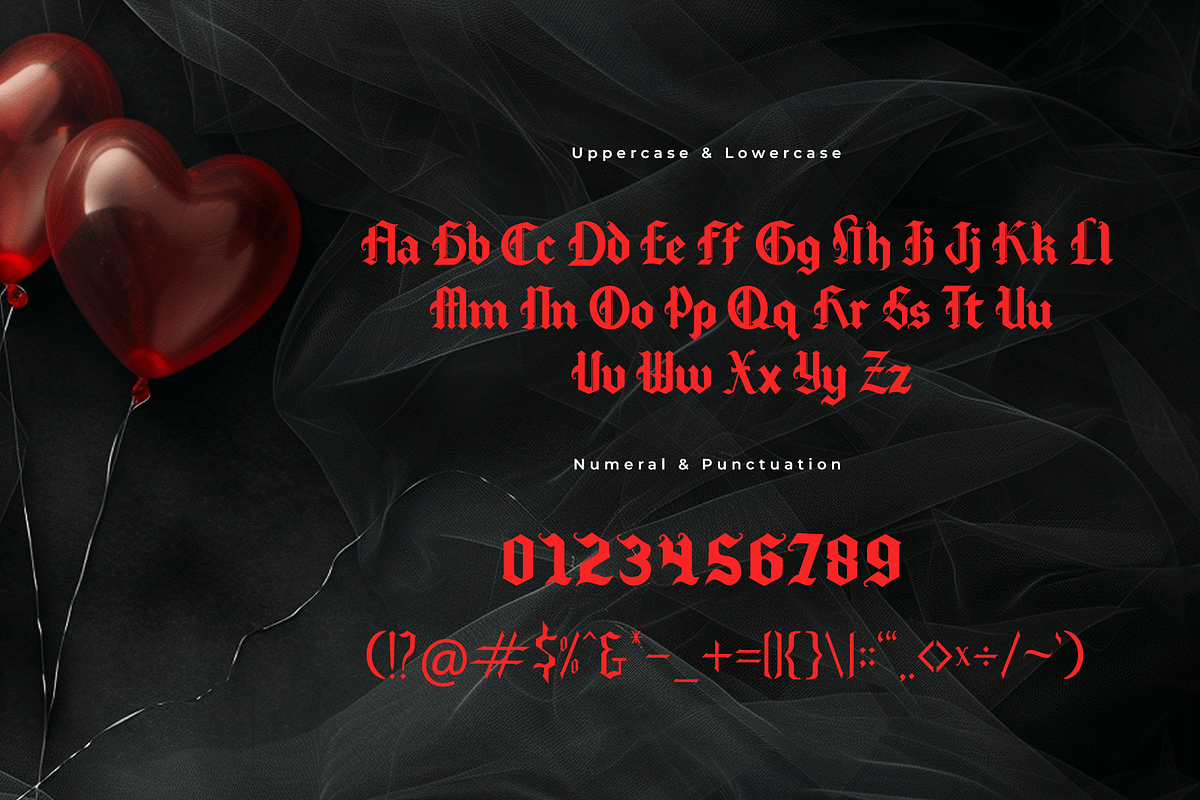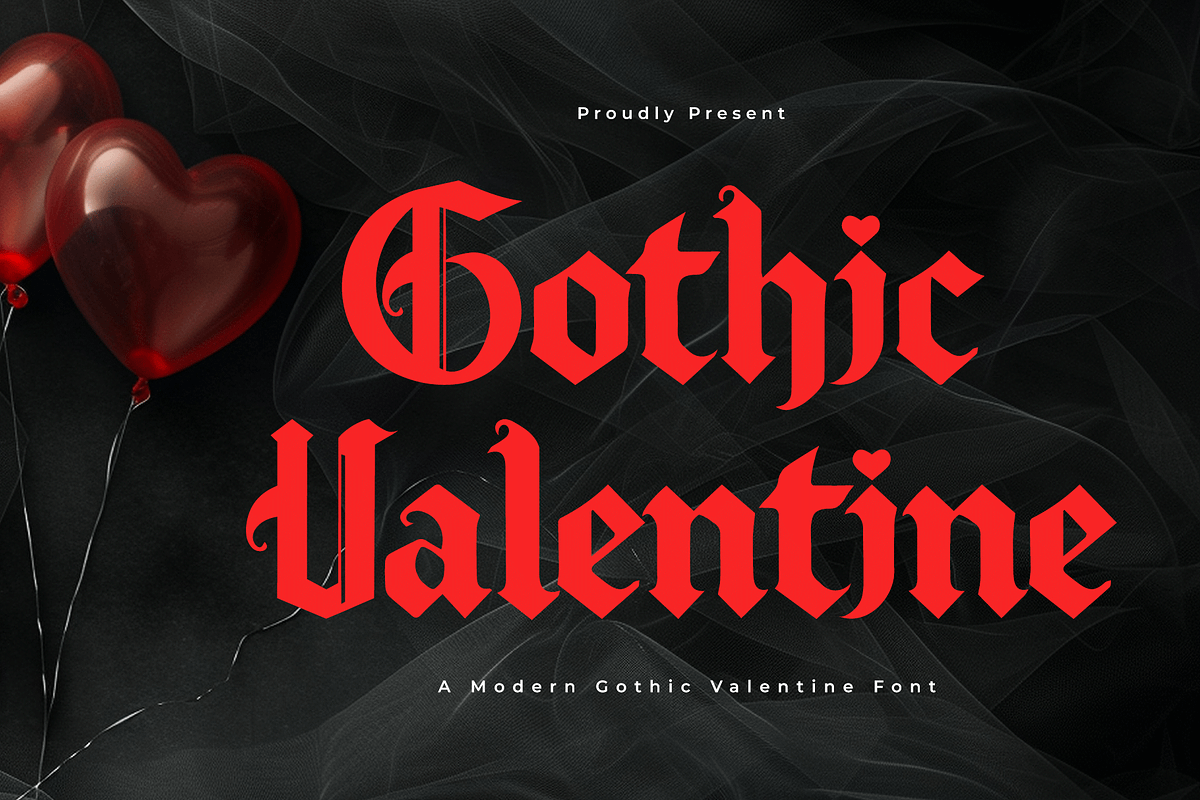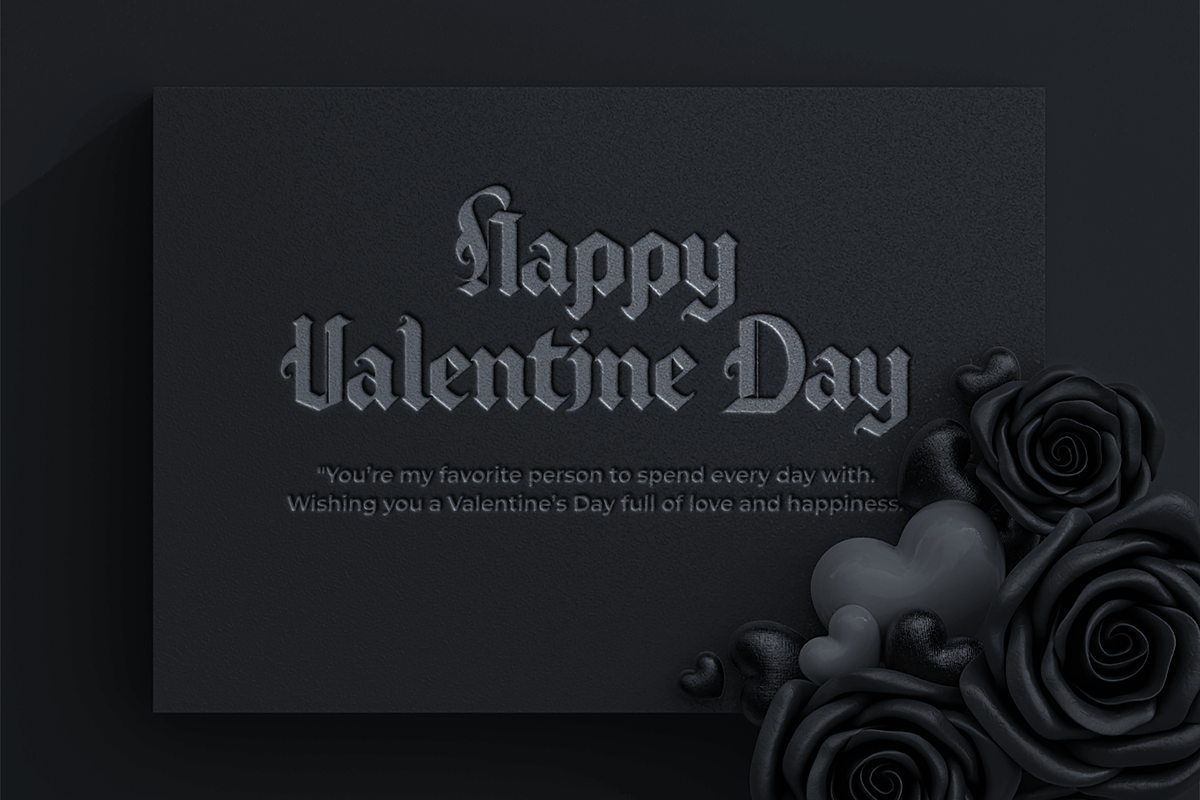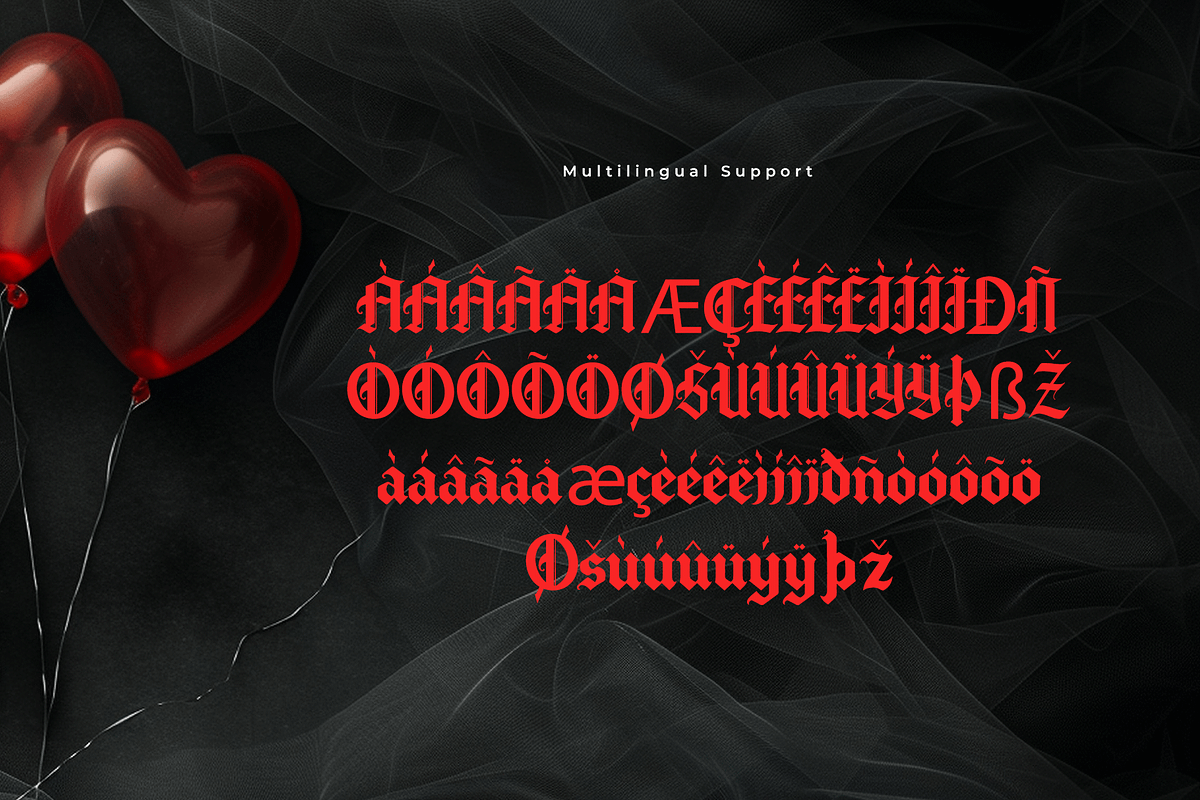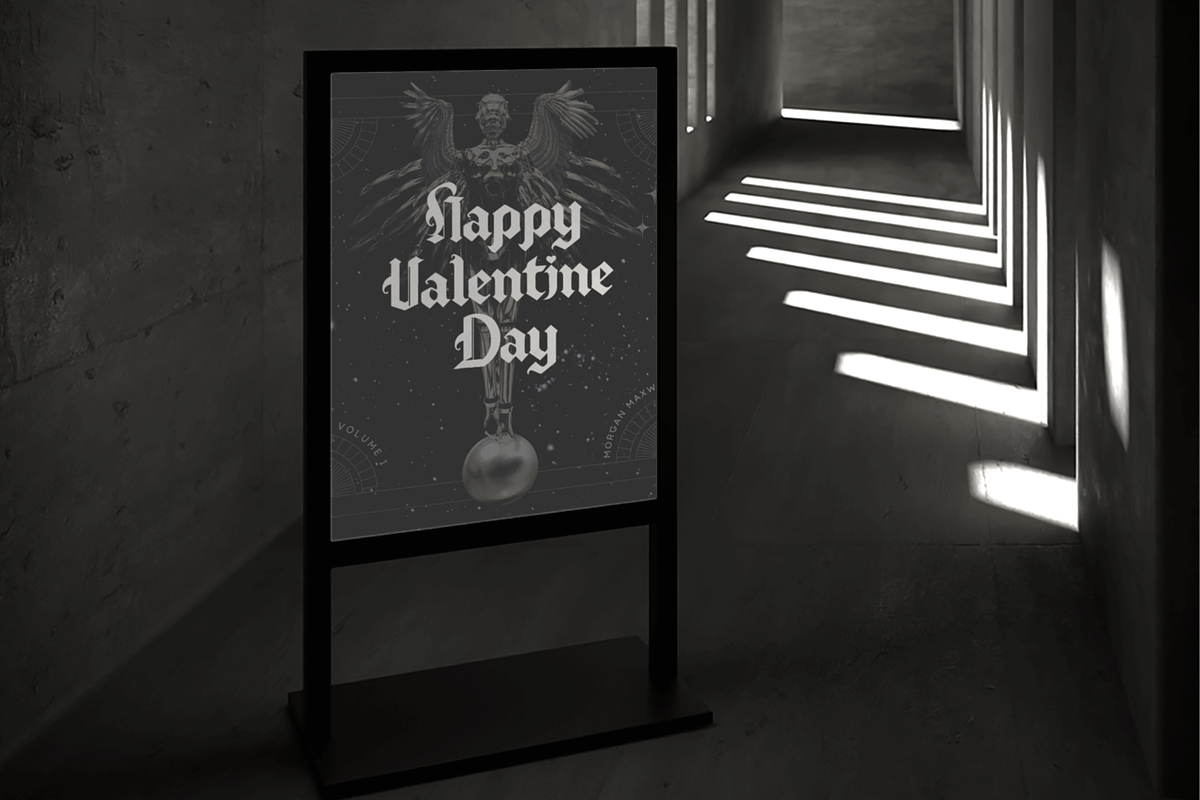
Gothic Valentine - Modern Valentine
Gothic Valentine - A Modern Gothic Valentine Font
Unleash a unique Valentine’s vibe with Gothic Valentine, a modern gothic font that blends romance with bold, dramatic style. Its sharp edges and distinctive characters make it perfect for unconventional love-themed designs.
Ideal for Valentine’s cards, posters, branding, and event invitations, Gothic Valentine stands out with its edgy yet elegant design. It’s a font for those who dare to express love differently.
With a complete character set, multilingual support, and unique stylistic details, Gothic Valentine brings bold romance to every project.